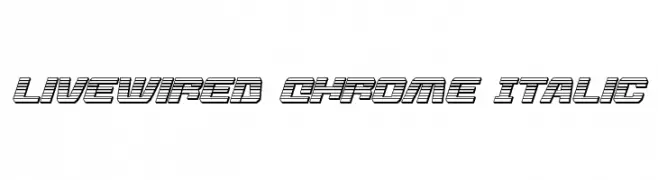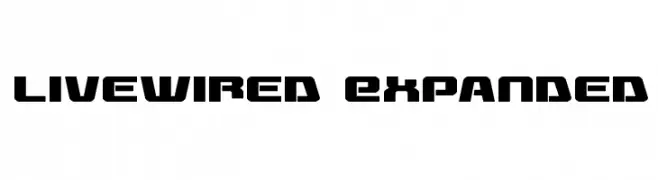
A bold, italicized font with a modern, futuristic style and outlined characters.
A futuristic, layered font with a three-dimensional, digital aesthetic.
A bold, italicized font with a futuristic striped design.
A bold, geometric, and condensed font with a modern, futuristic style.
A bold, condensed italic font with a modern, angular design.
A bold, futuristic font with wide, geometric characters and a modern aesthetic.
A bold, italic, and futuristic font with sharp angles and high contrast.
A futuristic, tech-inspired font with a bold, gradient line pattern.
A futuristic, italicized font with a gradient effect and striped pattern.
A bold, futuristic font with a halftone effect and geometric design.